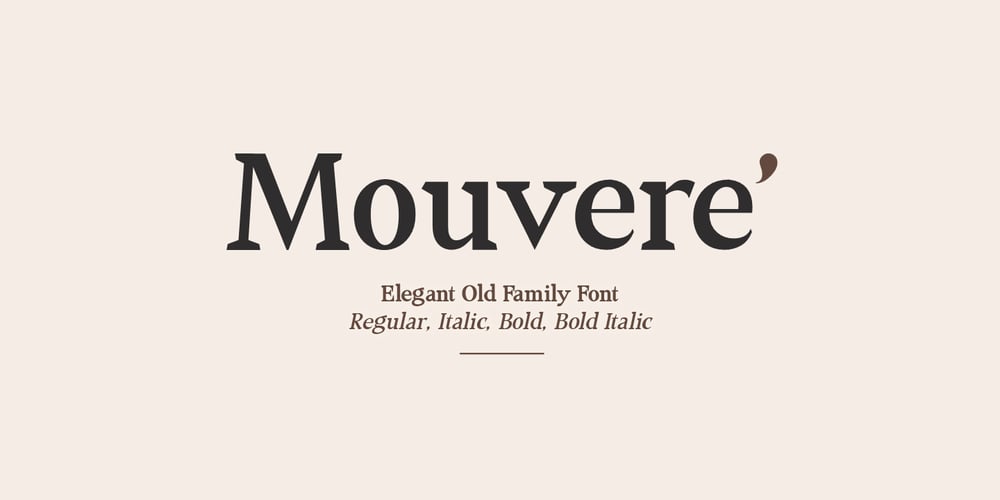
Mouvere
Mouvere font
Mouvere Font Family was designed by Muhammad Fikry and published by Fikryal. Mouvere contains 4 styles and family package options. Mouvere – Old Style Serif Family, comes with four types of typefaces, Regular, Italic, Bold, and Bold Italic.This font is very suitable to be applied in various aspects of design, and your branding.It’s perfect for logos, branding, title, social media posts, advertisements, product packaging, product designs, label, photography, watermark, special event, magazine, web designs, etc.Features :Multilingual SupportIf you have any questions please don’t hesitate to contact mefollow my Instagram: @fkryallThank you